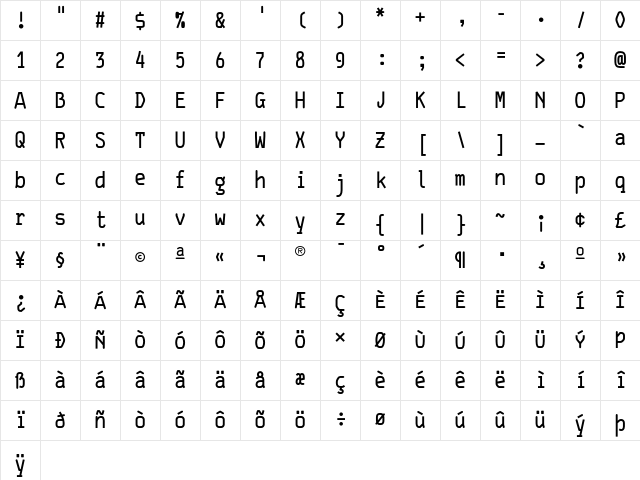
HardCase LightCondensed Free Font
HardCase LightCondensed
Design Context for HardCase
HardCase is a composed and adaptable typeface that performs quietly and consistently across a wide range of design contexts. Its slender proportions lend an understated elegance to any composition. Its narrow stance lets it pack a punch even in space-constrained designs.